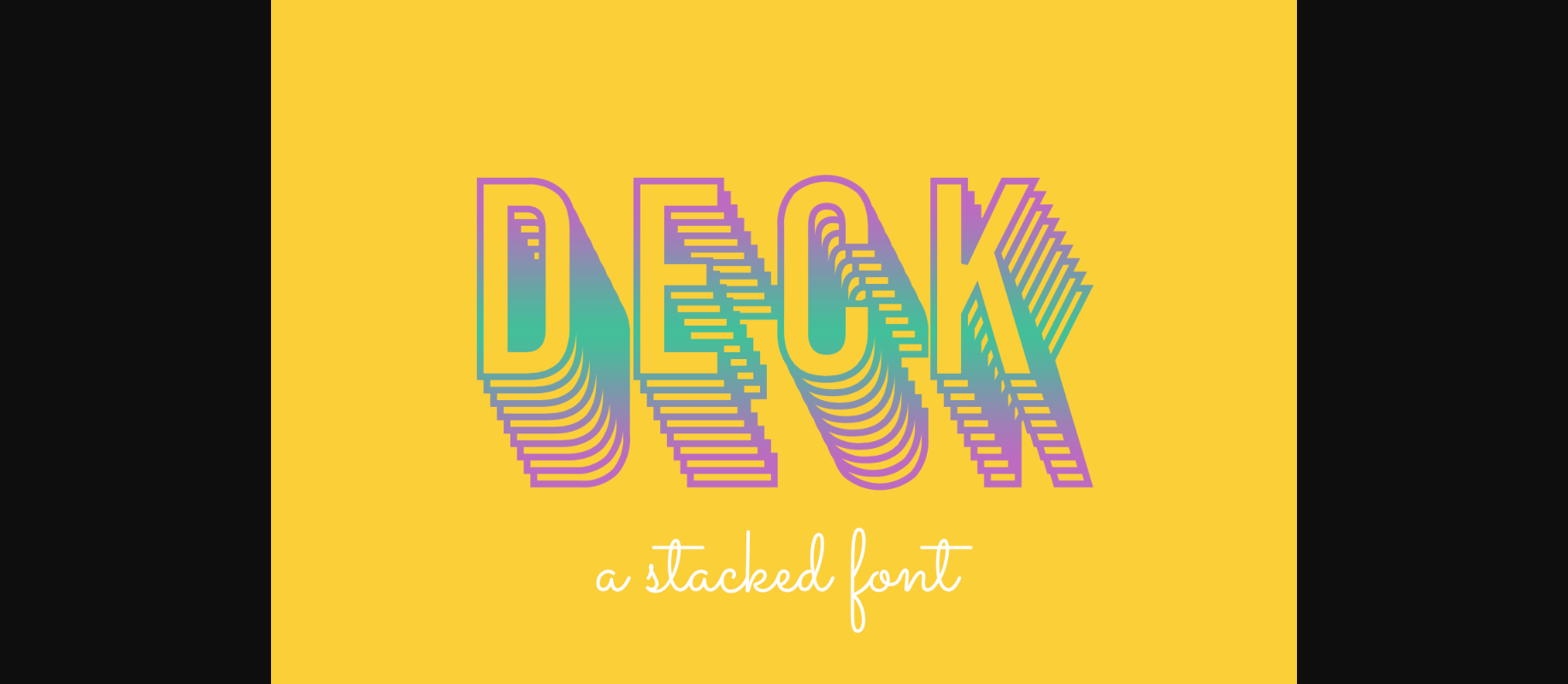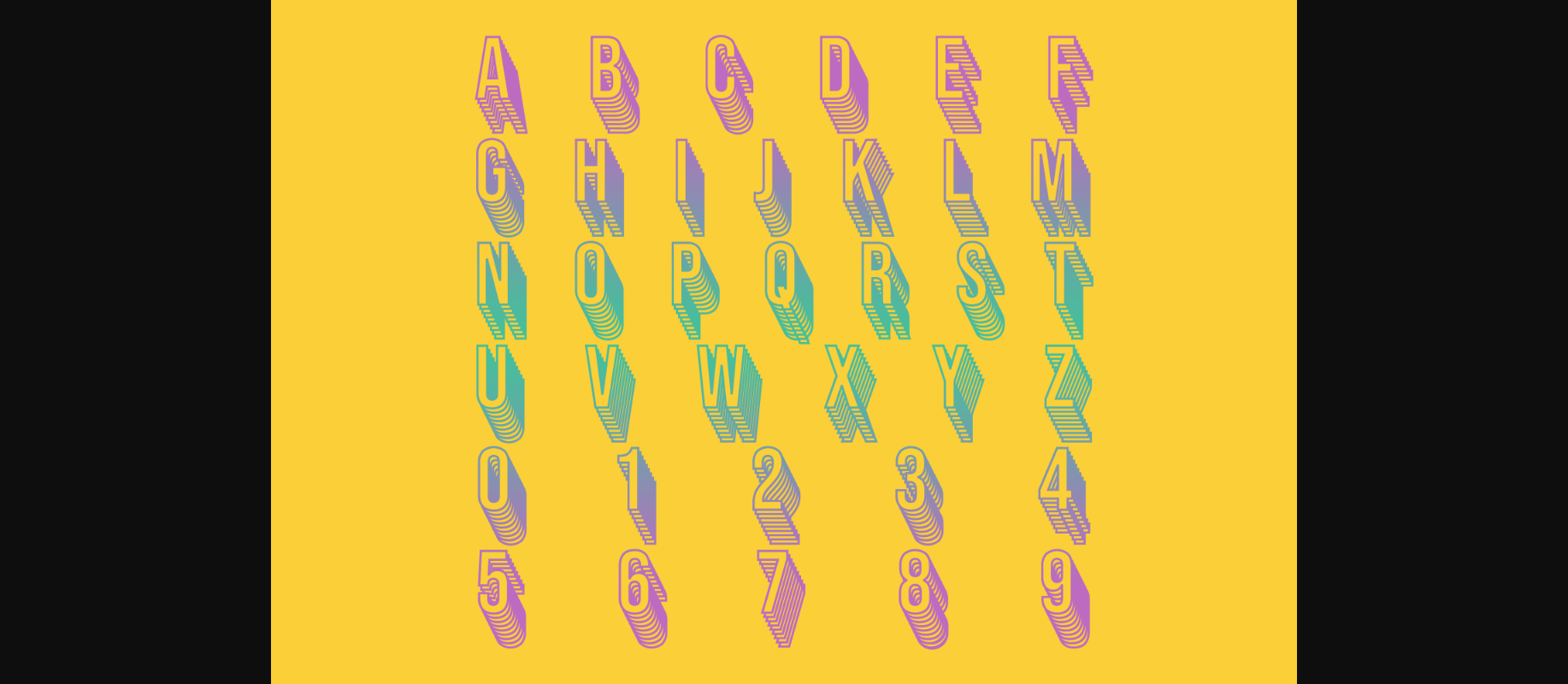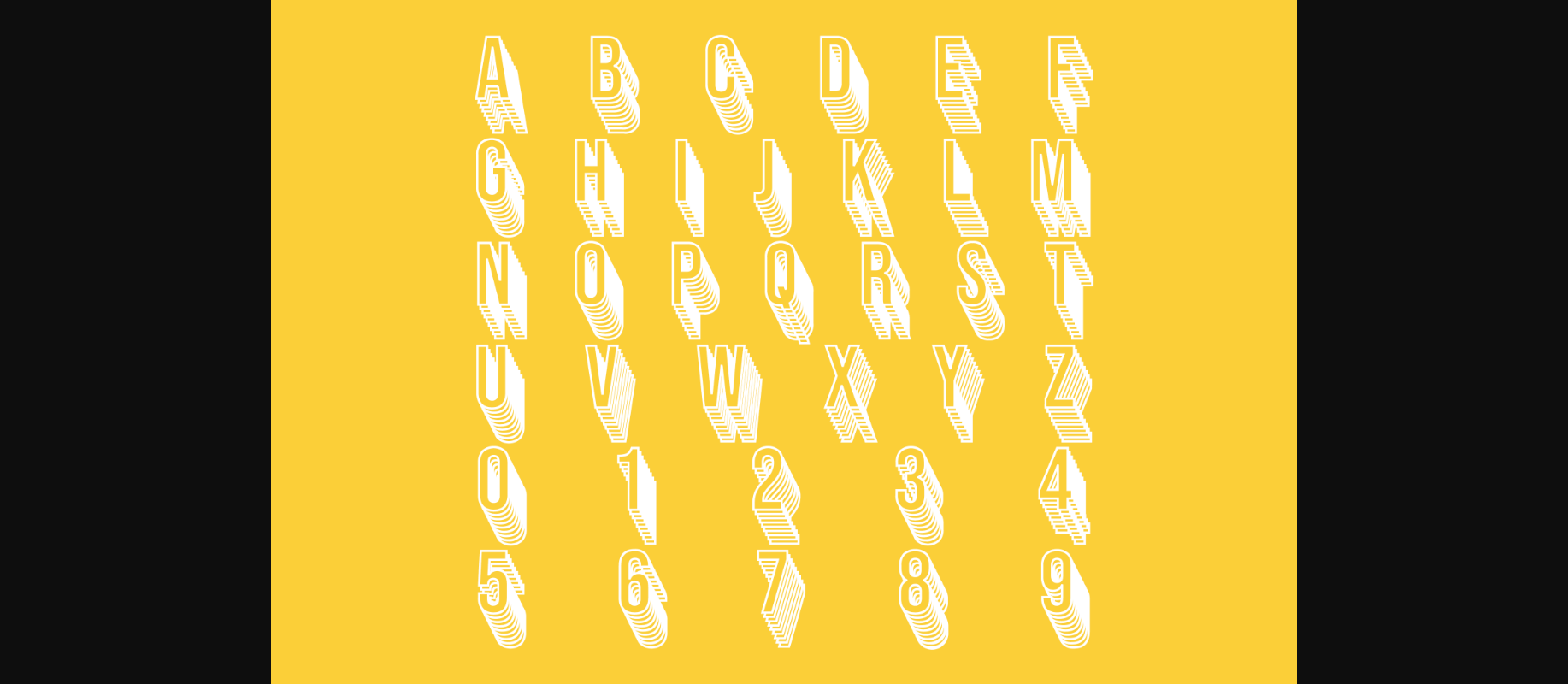
About Deck Font
Deck is an incredibly cool decorative font. Whether you use it for custom designs, DIY crafts, or just any creation that requires a lovely touch, this font will be an amazing choice.